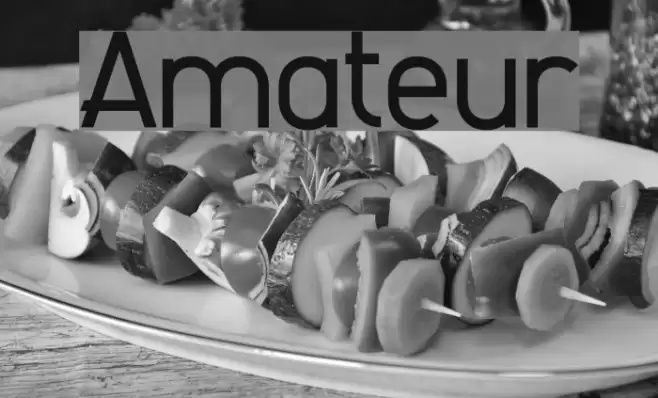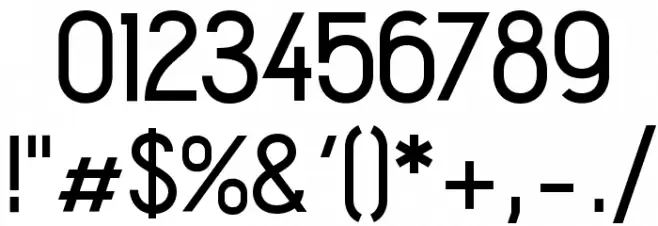
Amateur Font
Amateur Description
This font features a clean and modern sans-serif design with uniform stroke widths, giving it a sleek and contemporary appearance. The characters are well-balanced, with a consistent height and width that ensures readability across various sizes. The uppercase letters are bold and assertive, while the lowercase letters maintain a friendly and approachable feel. The numerals are clear and distinct, making them suitable for both digital and print applications. Special characters are included, providing versatility for different types of content. Overall, this font exudes a professional yet accessible vibe, making it ideal for a wide range of design projects.
A modern sans-serif font with clean lines and uniform stroke widths from Uncategorized fonts.
- Proposed Projects: Ideal for branding, web design, advertising, and editorial projects.